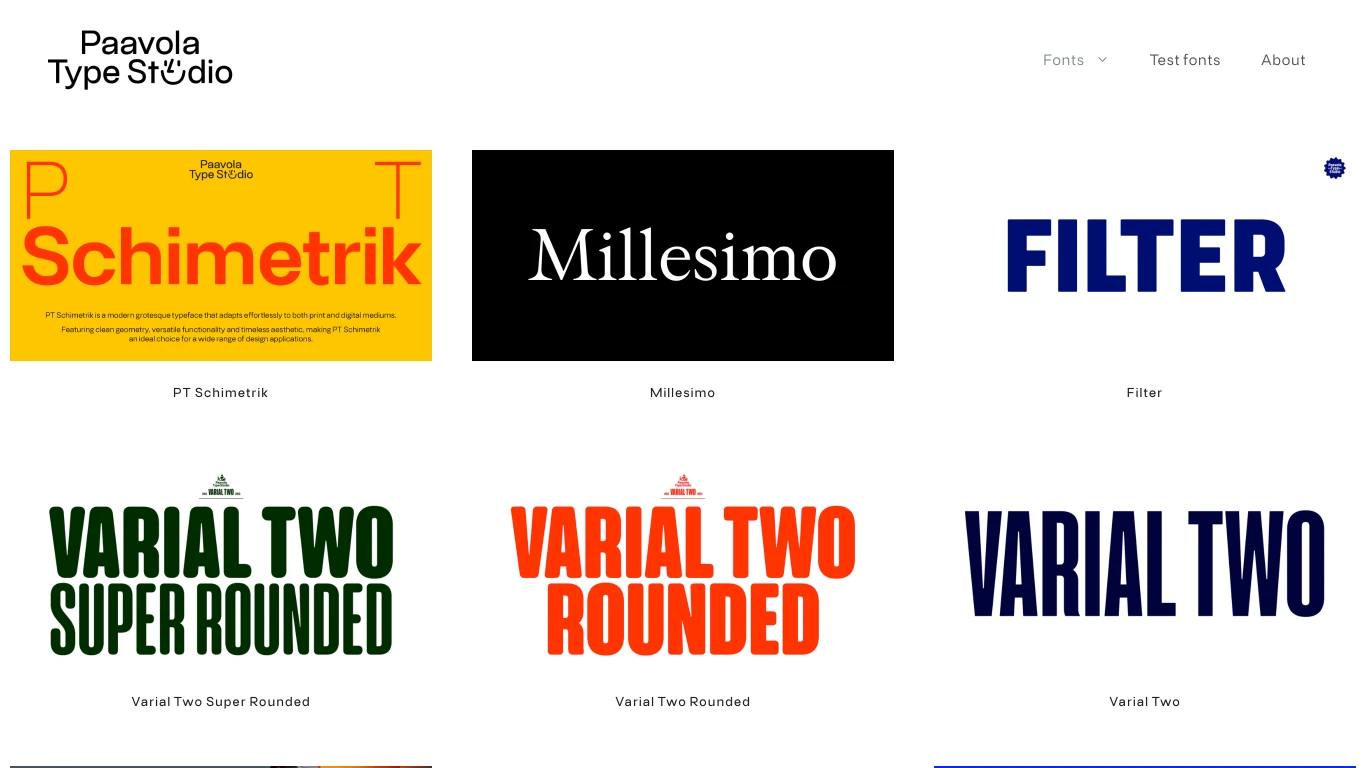
Paavola Type Studio
Finland
2021
Paavola Type Studio is an independent type foundry based in Helsinki, Finland, founded in 2021 by type designer Jani Paavola. The studio focuses on crafting original, well-designed typefaces that meet high standards of aesthetics and usability. A notable release from the studio is PT Filter, a versatile grotesque sans-serif font family that blends modern aesthetics with timeless legibility. Inspired by early 20th-century grotesque typefaces, PT Filter is designed for clarity across various applications, from digital interfaces to print media.